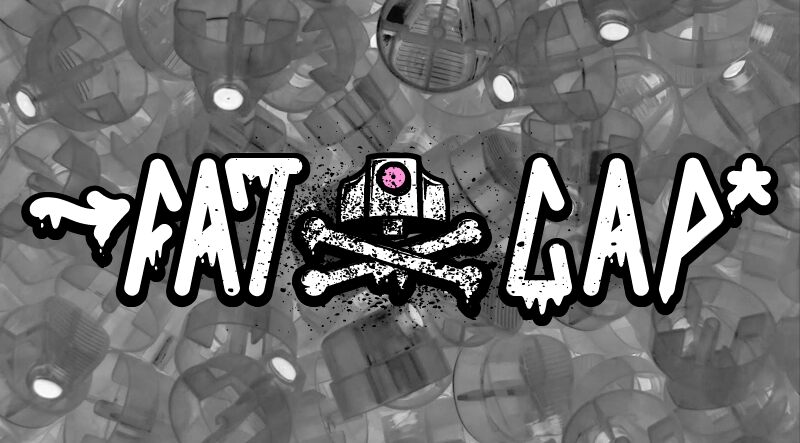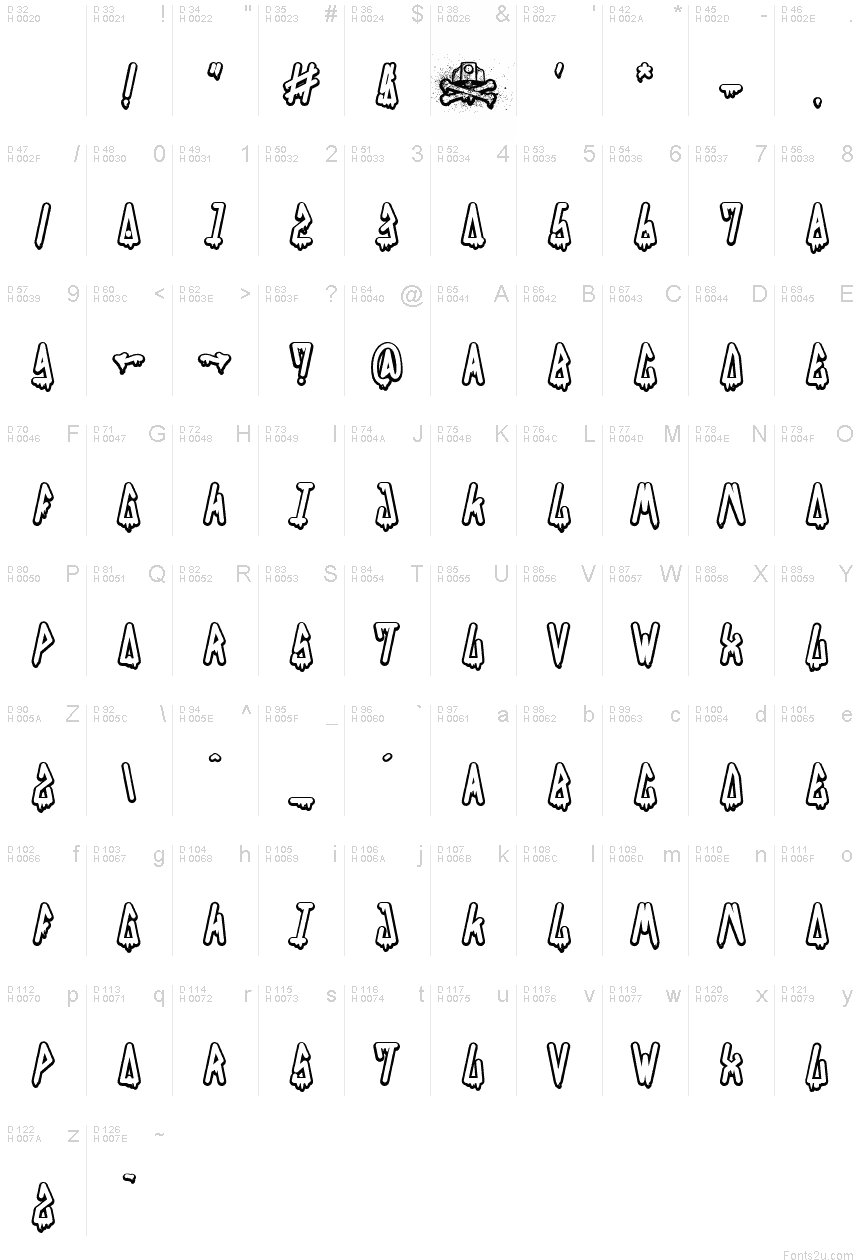
Far&Cap Bold is a free decorative caps font with tall, narrow letters and a loose, hand-drawn outline. Sharp interior cuts break up the rounded forms, and several strokes taper into dangling, ink-like points. The uneven contours give each character the look of custom poster lettering.
Monster stories and mischievous horror are a natural match for its dripping details, making it useful for Halloween event posters, game graphics, and children's entertainment. A shared taste for comic menace links all three uses.